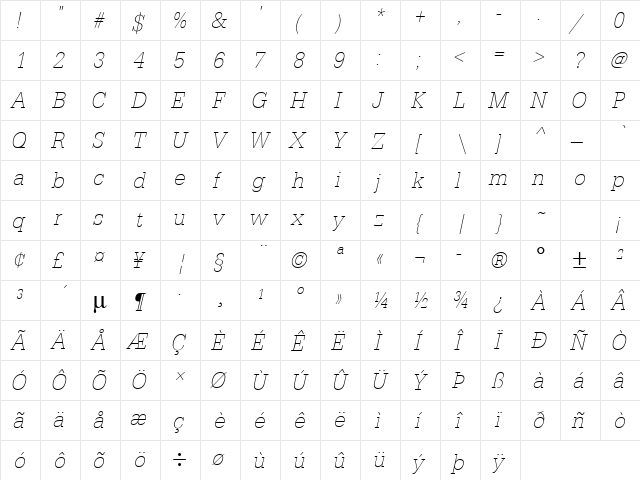
URWTypewriterTExtLigExtNar Oblique Font Preview
Design Context for URWTypewriterTExtLigExtNar Typeface
URWTypewriterTExtLigExtNar brings the precise, column-aligned rhythm of monospaced typography to designs that value technical clarity and systematic order. The dynamic lean of this cut emphasises speed and emphasis in any layout.